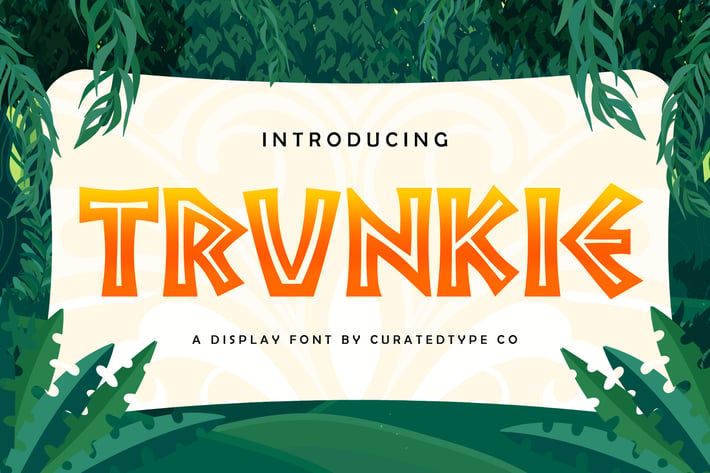
Trunkie - Urban Display Font
Trunkie is a font that commands attention with its bold, angular design. The characters feature sharp edges and a striking contrast, thanks to their black fill and transparent line in the middle. This unique combination creates a sense of edginess and dynamism, reminiscent of tribal art or graffiti styles. The font exudes a strong personality, making it ideal for projects that aim to stand out and make a statement, such as posters, street art, or dynamic visual content.
The versatility of Trunkie lies in its ability to blend contemporary and unconventional elements. Each letter seems to convey a sense of motion and energy, perfect for creative ventures that seek to capture an audience's imagination. Whether used in digital media or print, Trunkie adds an element of bold creativity that enhances the overall impact of any design. It’s not just a font; it’s a visual experience that invites viewers to engage and explore the artistic intent behind every character.
2 Font Styles: Light & Extra Bold
Standard letter A-Z and a-z
Numeral, Symbol, and Punctuations